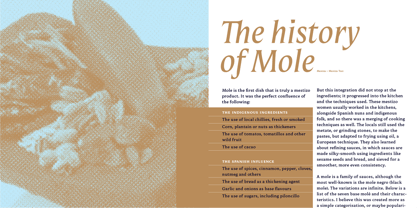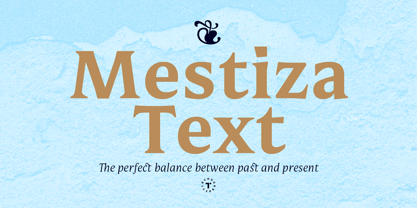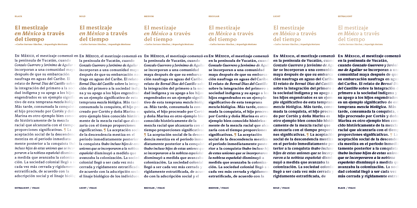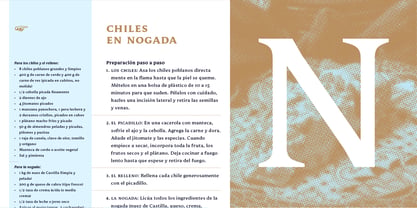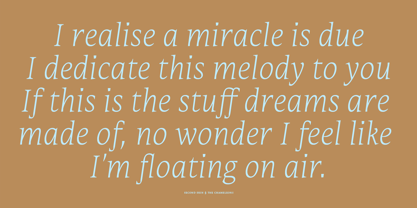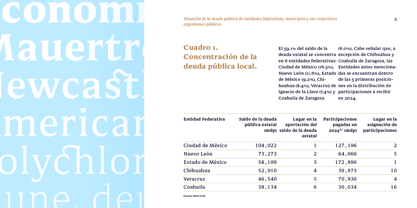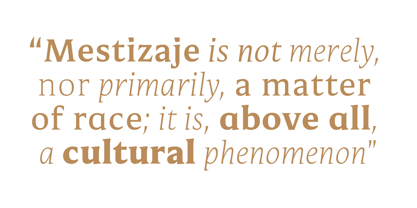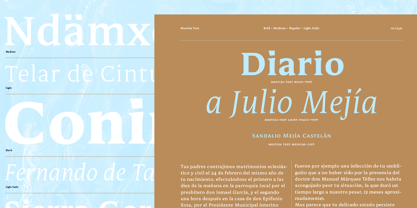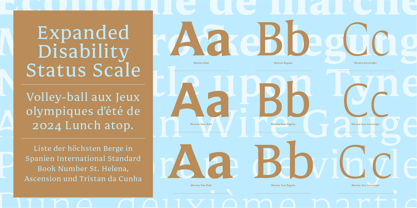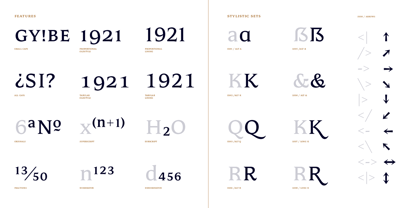
Mestiza Text
The Mestiza Text Font Family was designed by Antonio Mejía and published by Lechuga Type. Mestiza Text contains 12 styles and family package options. More about this family
Mestiza Text completes the Mestiza system: a superfamily comprising Sans and Serif versions for large sizes, each with a unique personality, and now featuring the new Mestiza Text optical size, ideal for solid body text. It has a large x-height, short descenders, and balanced width, ensuring excellent readability in both print and on screen. It features 900 characters covering more than 300 Latin-based languages and supports the composition of more complex texts, including lining and old-style tabular figures, superscripts and subscripts, small caps, fractions, and more.
Antonio Mejía Lechuga was born in Huauchinango, Mexico. From the beginning, he focused on branding. After gaining twelve years of experience working for various design studios, primarily in branding, packaging, and publishing, he realized that studying typographic design would improve his brand identity projects. In 2016, he opened his own studio, combining branding and typography to offer clients the best of both worlds. Over time, he has devoted more and more of his time to developing new typographic projects for companies and the retail market.